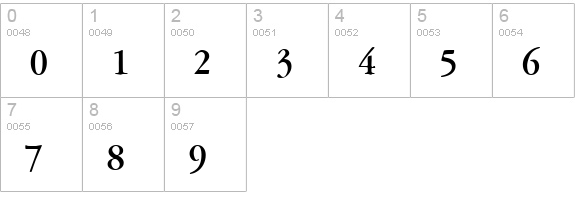
A771-Roman-Bold Font Details
A771-Roman-Bold is a strong, high-contrast variant in the A771 typeface family \xE2\x80\x94 well suited to headlines, attention-grabbing titles, and strong calls-to-action.
A771-Roman-Bold is a classic and elegant font that exudes sophistication and refinement. Its bold and strong appearance makes it perfect for headlines, titles, and branding projects that require a touch of class. The clean lines and precise curves of this typeface give it a timeless appeal that will never go out of style. What makes A771-Roman-Bold even more appealing is that it is available for free download at FontsMarket.com. This means you can easily access this high-quality font for your personal and commercial projects without any cost. Don't miss out on the opportunity to enhance your designs with the beauty and versatility of A771-Roman-Bold. Download it now and elevate your typography game to the next level.